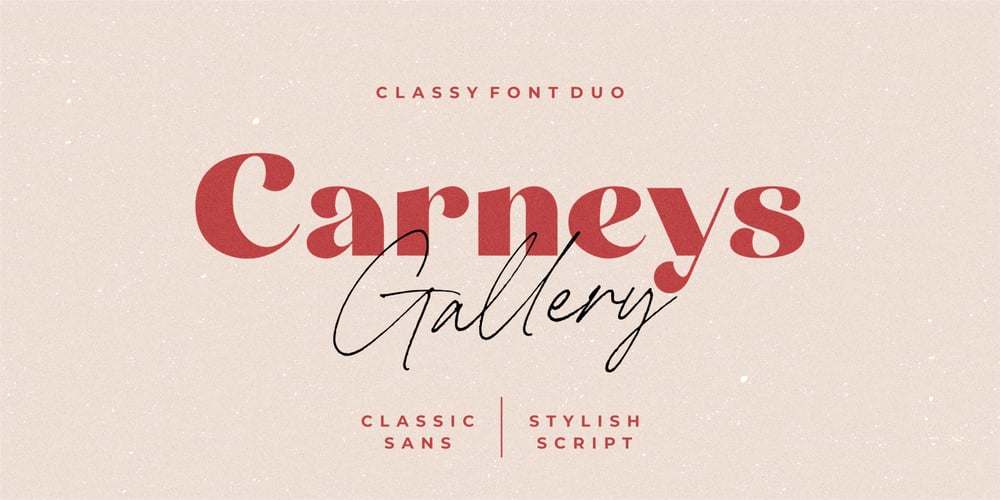
Carneys Gallery Font Family was designed by Annas Alam Yahya and published by Letteralle. Carneys Gallery contains 2 styles and family package options. Carneys Gallery a classy font duo, with a classic sans and script font. Carneys Gallery is handmade and carefully crafted so it will offer balance and beauty in your designs. Carneys Gallery includes 2 fonts : – Carneys Gallery : Sans serif font including Uppercase, Lowercase, Number, Punctuation, and multilingual support. – Carneys Gallery Script: Uppercase, Lowercase, Number, Punctuation, multilingual support, and a tons of ligatures that will enhance the natural impression. That’s it! I really hope you enjoy it and please do let me know what you think, feel free to comment if there are issues or queries. Thank You!